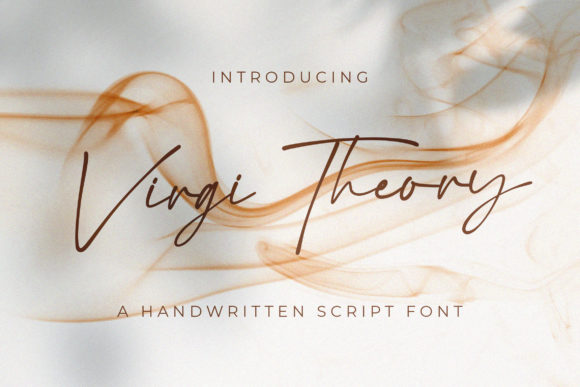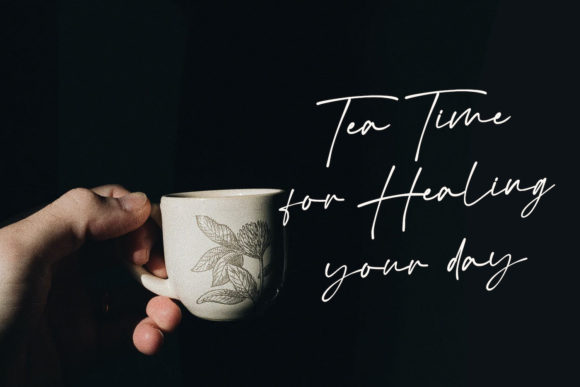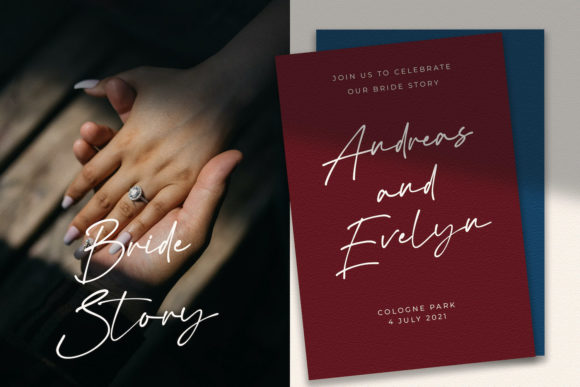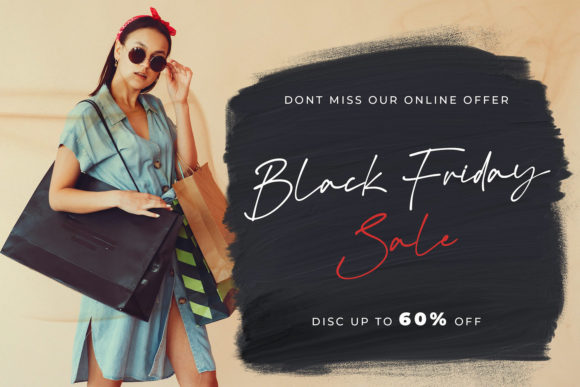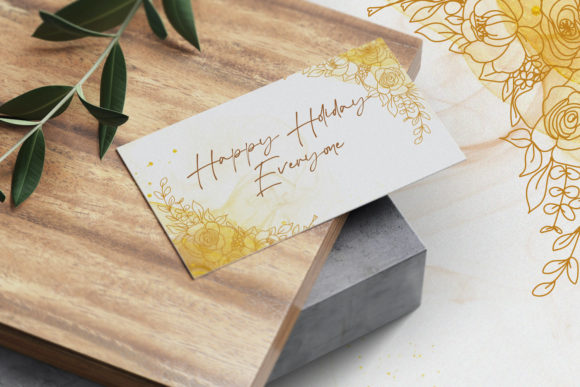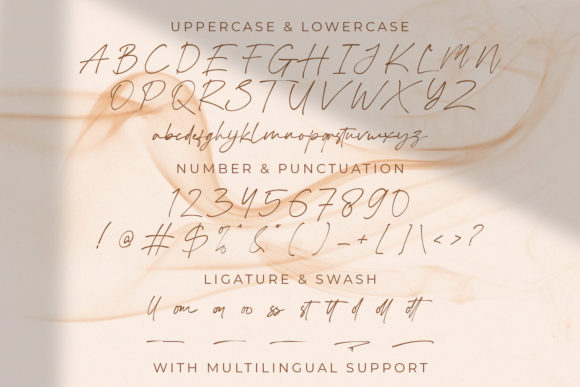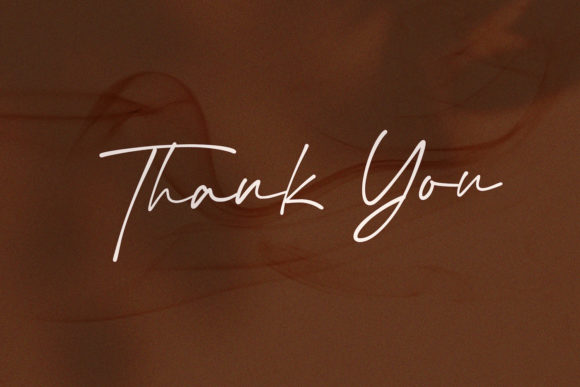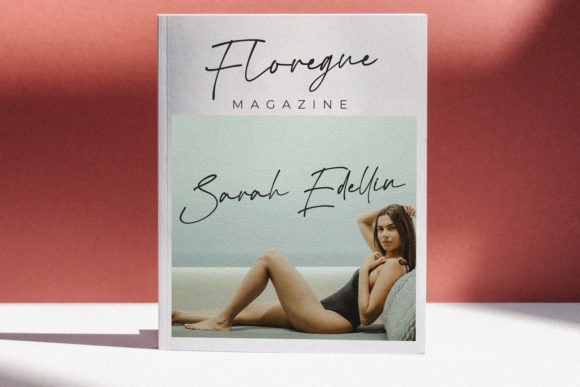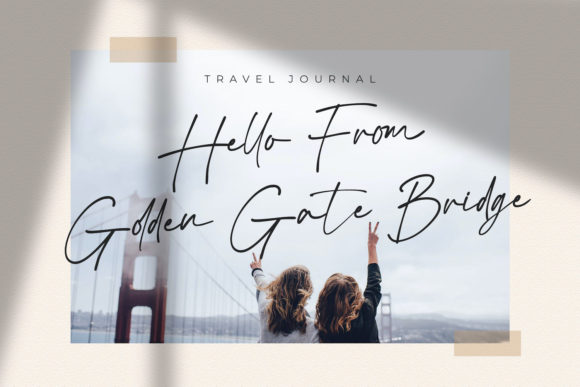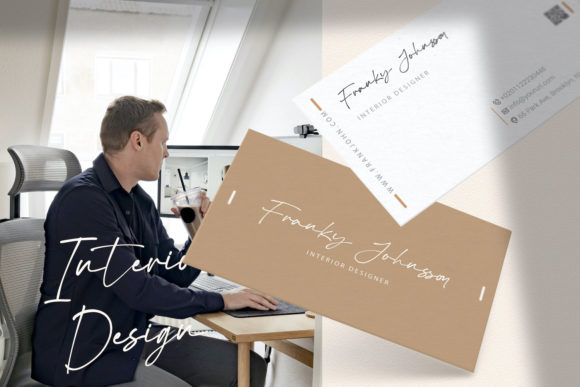
Virgi Theory Font
About Virgi Theory Font
Virgi Theory is a delicate, elegant, and flowing handwritten font. It has lovely natural characters and a nice flowy style that can elevate the look of any project!